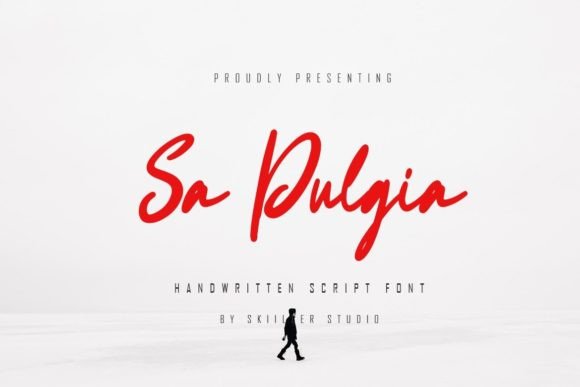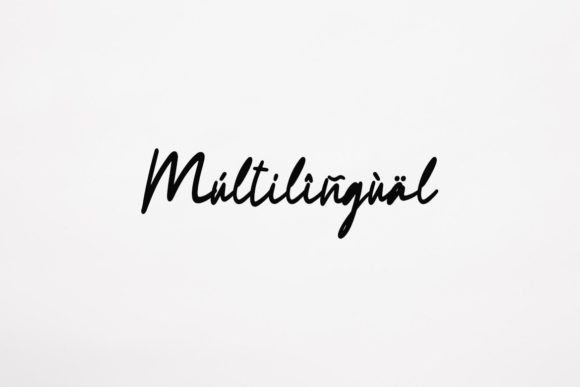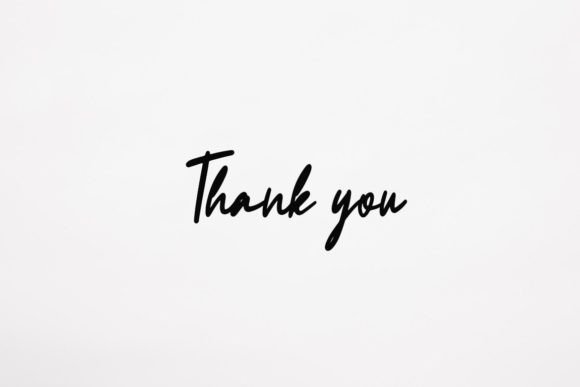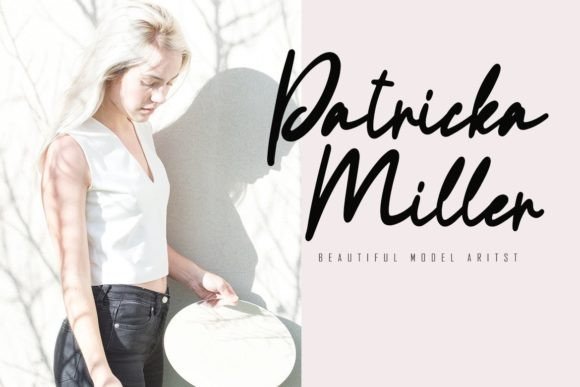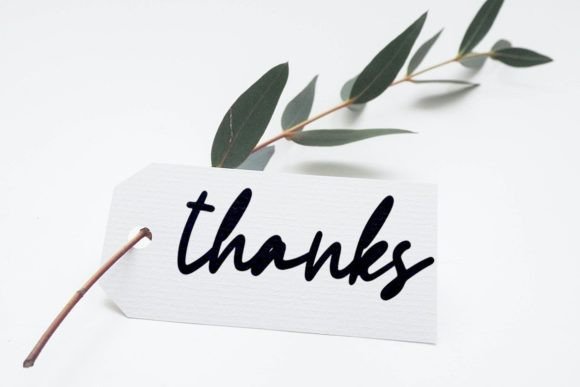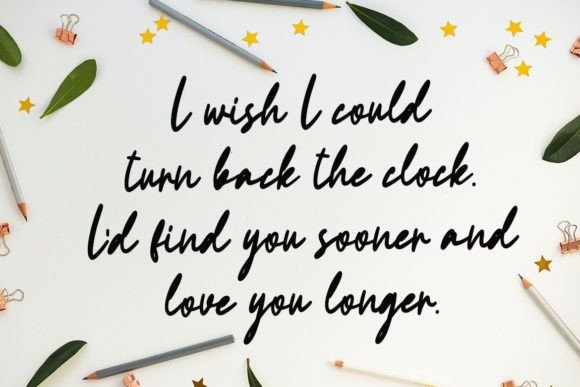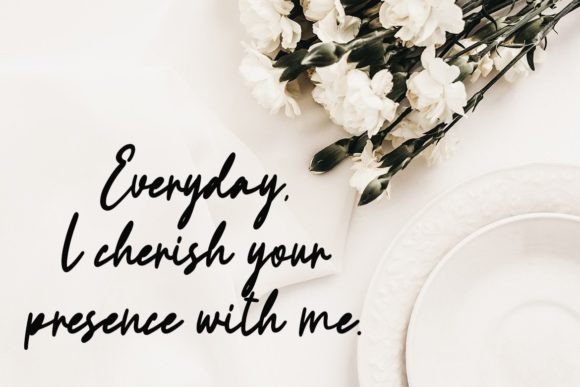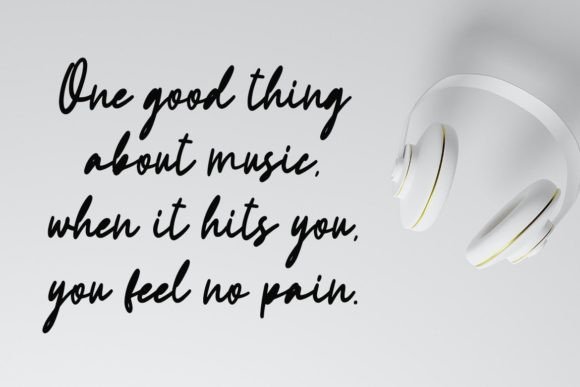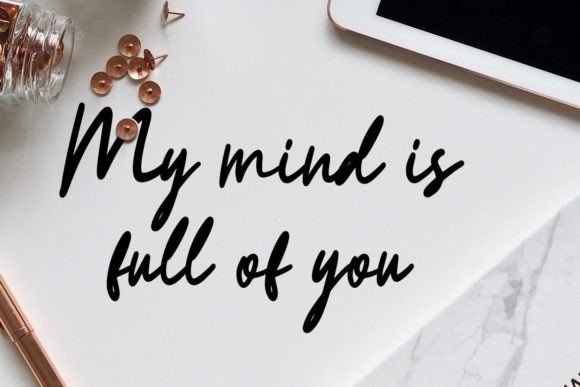
Sa Pulgia Font
About Sa Pulgia Font
“Sa Pulgia” is a beautiful script font with a modern and cool style, making it a versatile choice for various design applications. This font is well-suited for promotions, business materials, company branding, clothing store logos, wedding designs, and more.
The script style of “Sa Pulgia” adds an elegant and flowing quality to your text, contributing to its beauty and appeal. The modern and cool style of the font ensures that it can adapt to contemporary design trends, making it suitable for a wide range of projects.
For promotional materials, “Sa Pulgia” brings a touch of sophistication to your text, making it visually engaging and appealing to your target audience. Whether used in flyers, posters, or digital promotions, the font enhances the overall aesthetic of your promotional content.
In business materials, “Sa Pulgia” contributes to a professional and stylish presentation. Its script design adds a personal and human touch, making it suitable for a variety of documents, including business cards, presentations, and letterheads.
For company branding, the modern and cool style of “Sa Pulgia” can help create a distinctive and memorable visual identity. The font’s versatility allows it to be applied to different branding elements, ensuring a cohesive and stylish representation for your brand.
Clothing store logos benefit from the stylish and elegant qualities of “Sa Pulgia.” The script font adds a touch of sophistication, making it suitable for fashion-related branding and design projects.
In wedding designs, “Sa Pulgia” brings a romantic and modern flair to invitations, signage, and other materials. The script font complements the celebratory atmosphere of weddings, adding a touch of beauty to the overall design.
Whether you’re working on business-related materials or creative design projects, “Sa Pulgia” provides a beautiful script font option with a modern and cool style. Embrace the font to enhance the visual appeal of your designs and create a stylish and memorable impression.